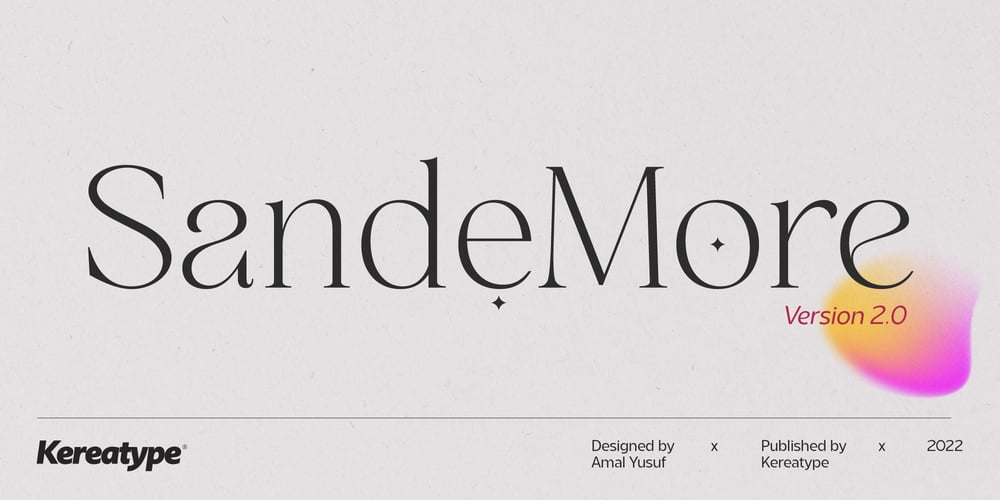
San de More Font Family was designed by Amal Yusuf and published by Kereatype. San de More contains 10 styles and family package options. San de More is a Variable family Serif font. A Hype of summer-themed brings us to express a thirst for creating a product that can help you to choose fonts for your creations. Like as we are on the preview above, how the fonts can “stand” within your design.San de More is created on a 5 weight with italics style. You won’t be worried about which one fits your creative design. Also, You can Mix it up all of it without worrying about design collision.No special software is required to type out the standard characters of the Typeface. To access the Opentype Ligatures and Alternates you will need software that supports Opentype features in fonts.San de More Features: Multilanguage Alternates PUA Encoded Ligatures Very easy to use in any software (Instructions included).If you have any questions, please feel free to get in touch.Thank you